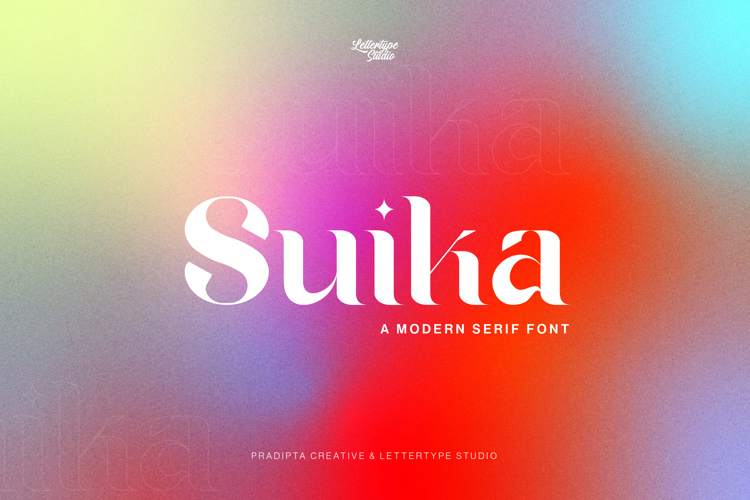
Suika Font
About Suika Font
Suika Typeface is a modern, classic or vintage font. This font will be perfect for logo design, branding, clothing, signage, posters, wedding invitations and so much more! My goal in creating this font was to create a mix of serif fonts with modern and classic styles, which will help your project to be more perfect and beautiful. Don’t Miss Out!
Diki Pradipta Tri Atmojo
Pradipta Creative x Lettertype Studio